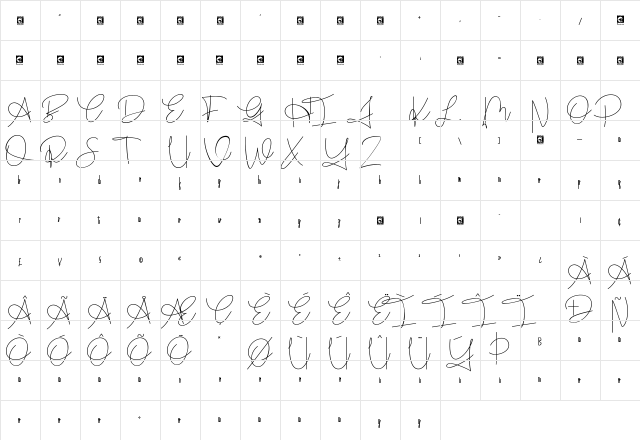
Handitype Regular
| Foundry | Putracetol Studio, Karanganyar. |
| Designer | Putra Novembria Candra Kusuma |
Design Context for Handitype Typeface
Handitype brings a calligraphic fluidity to the page — its connecting strokes and expressive curves give it an unmistakably human quality.